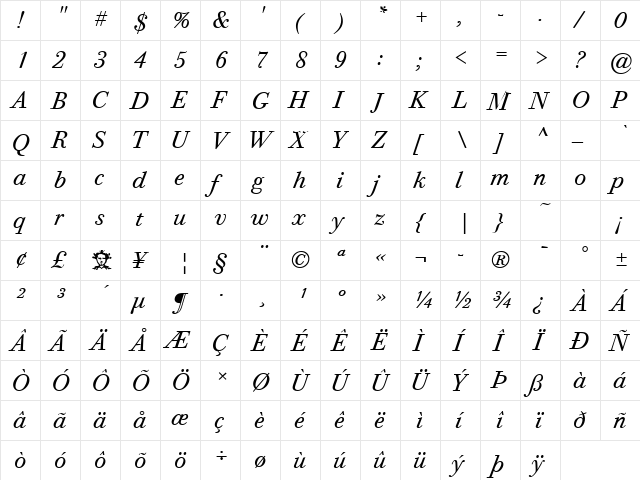
Bodoni Twelve ITC TT BookItalic
Design Context for Bodoni Twelve ITC TT Typeface
Bodoni Twelve ITC TT takes a measured approach to typography — its balanced proportions and neutral character make it a reliable workhorse for both digital and print work. The dynamic lean of this cut emphasises speed and emphasis in any layout.
Pro Tip: Use Bodoni Twelve ITC TT for emphasis, pull quotes, and subheadings where its slanted energy can add rhythm to the layout.